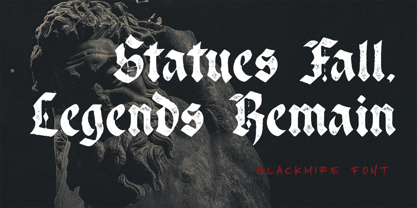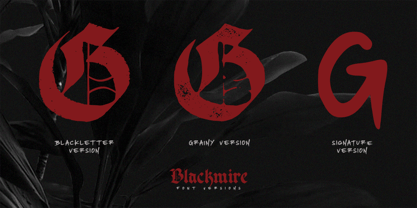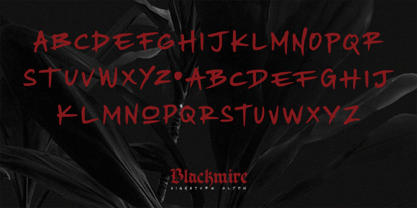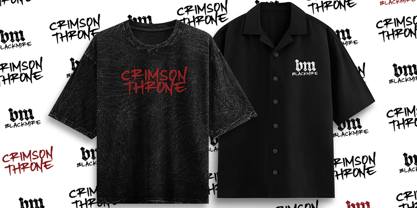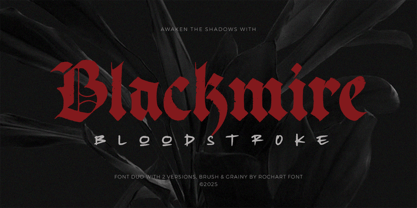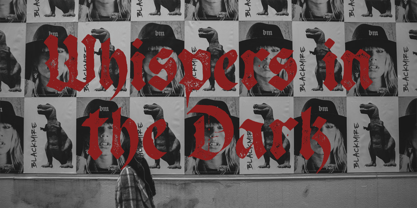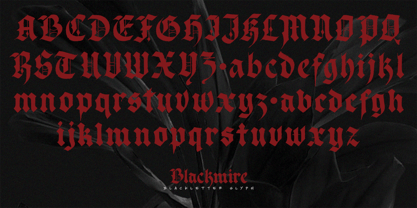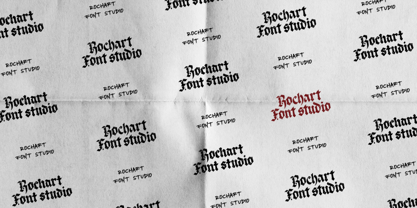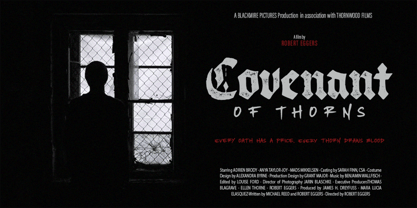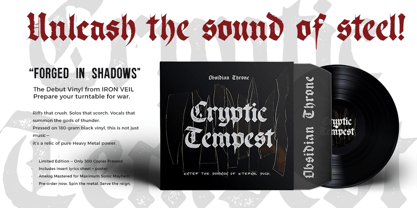
Blackmire
by Rochart
The Blackmire Font Family was designed by Rochadi Sudarma and published by Rochart. Blackmire contains 3 styles and family package options.
Blackmire is a modern Blackletter font duo infused with a dark, brutal, and dramatic atmosphere. Inspired by classic gothic typography combined with bloodlike strokes, shadows, and rough textures, Blackmire is designed to evoke the feeling of horror, metal, underground culture, and dark fantasy. This font comes in two versions: Brush & Grainy The Brush version features aggressive, raw strokes that resemble blood splashes or ritual markings drawn with intense emotion. Sharp edges and strong contrast make it perfect for headlines, band logos, album covers, extreme event posters, and dark streetwear branding. The grainy version introduces rough, dusty textures that create an aged, distorted, and ominous look. The grain effect adds visual depth and a mysterious atmosphere, making it ideal for horror designs, gothic artwork, dark illustrations, and cinematic visuals. As a font duo, Blackmire allows powerful typographic contrast using Brush for bold visual impact and Grainy for atmospheric depth. Together, they transform typography into a statement, making Blackmire more than just a font, but a visual force that awakens the shadows.